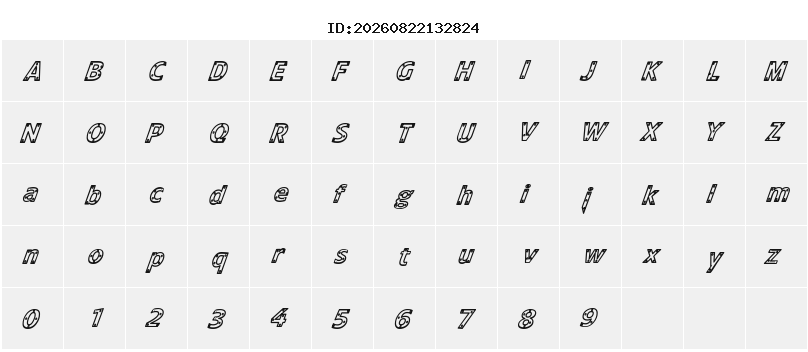
• Font Name: ScrewedFontSlantedDark
About ScrewedFontSlantedDark.ttf
ScrewedFontSlantedDark.ttf is a modern, elegant sans-serif font designed for ultimate readability and visual harmony. Perfect for branding, headlines, web design, and print materials.